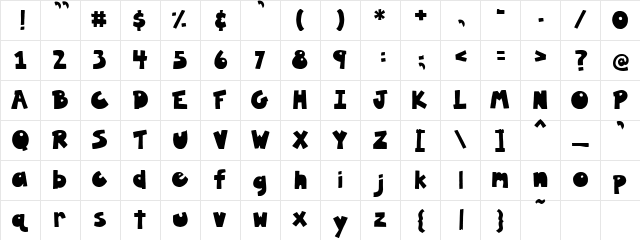
PC Cookie Filling Regular Free Font
PC Cookie Filling Regular
Design Context for PC Cookie Filling
PC Cookie Filling is a composed and adaptable typeface that performs quietly and consistently across a wide range of design contexts.